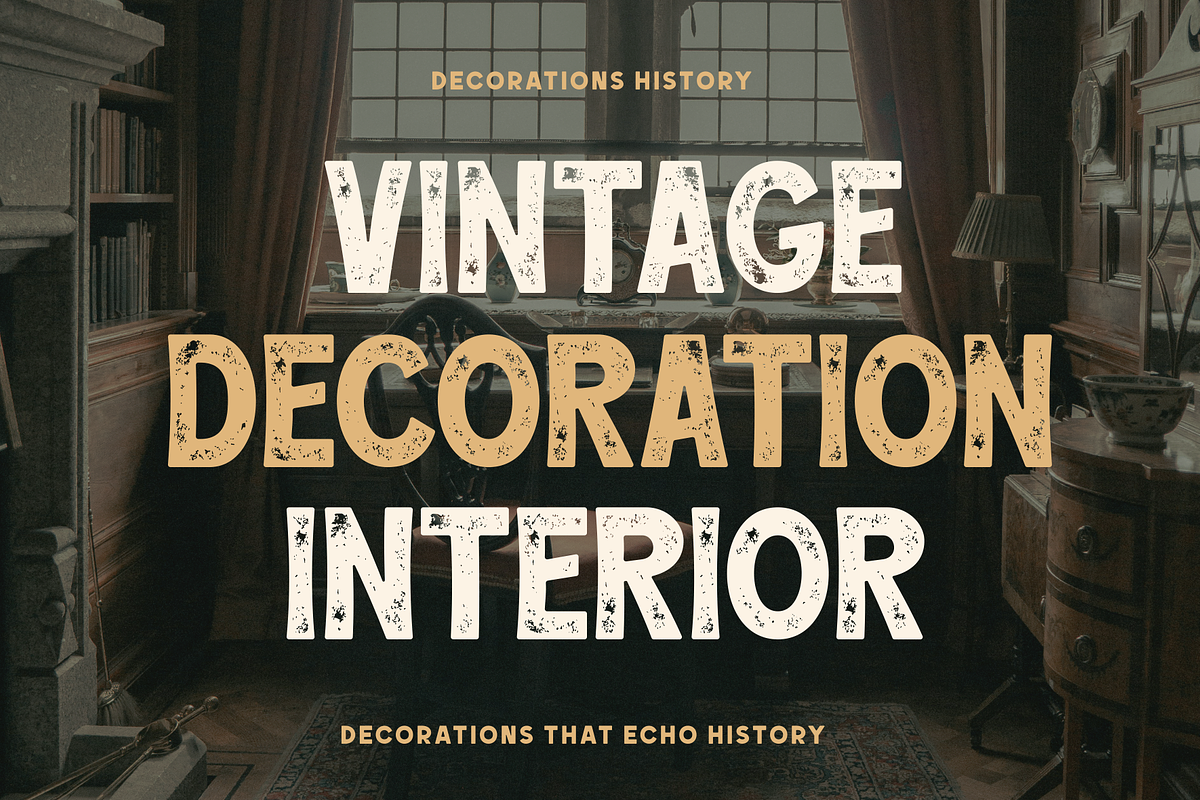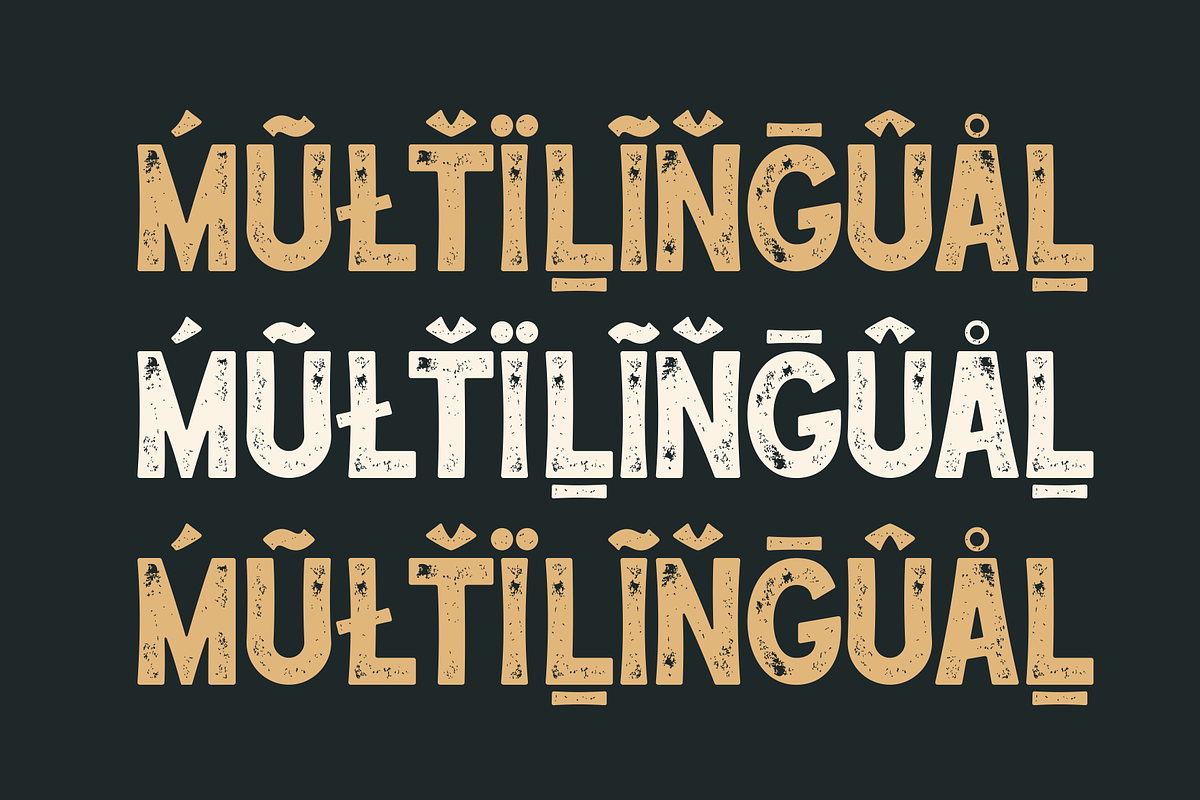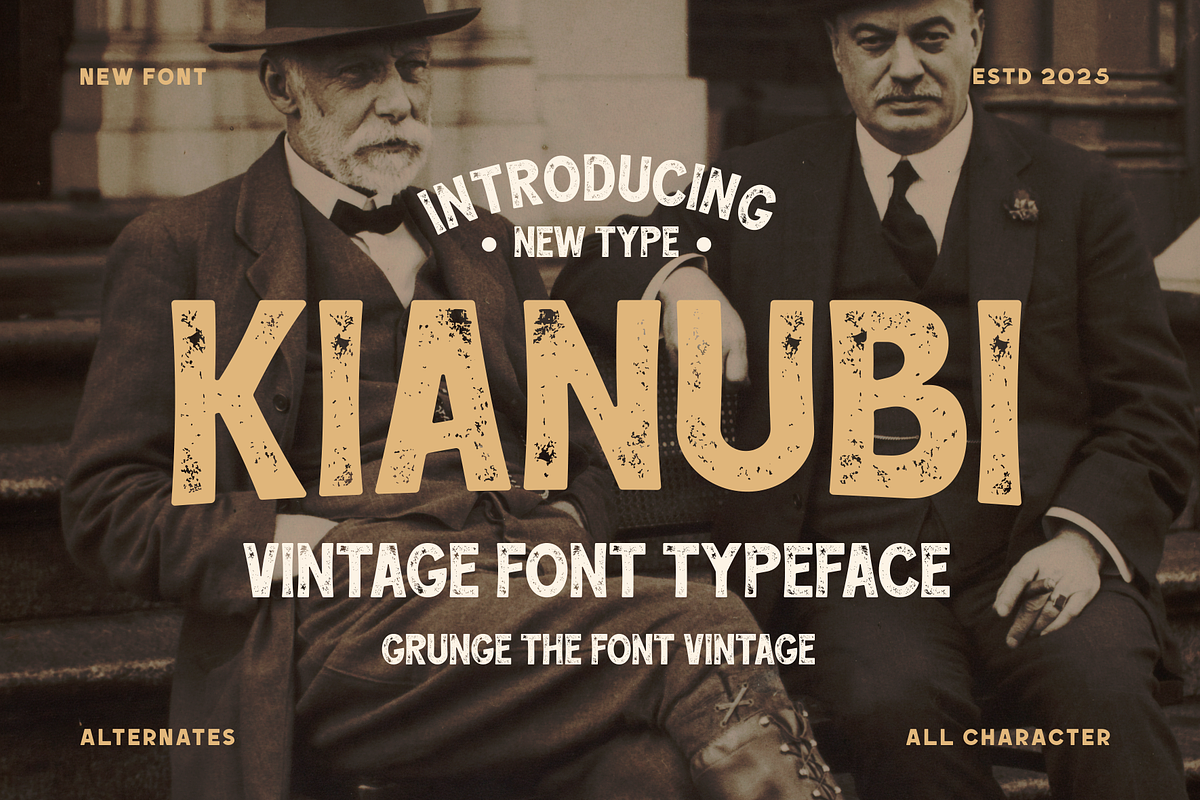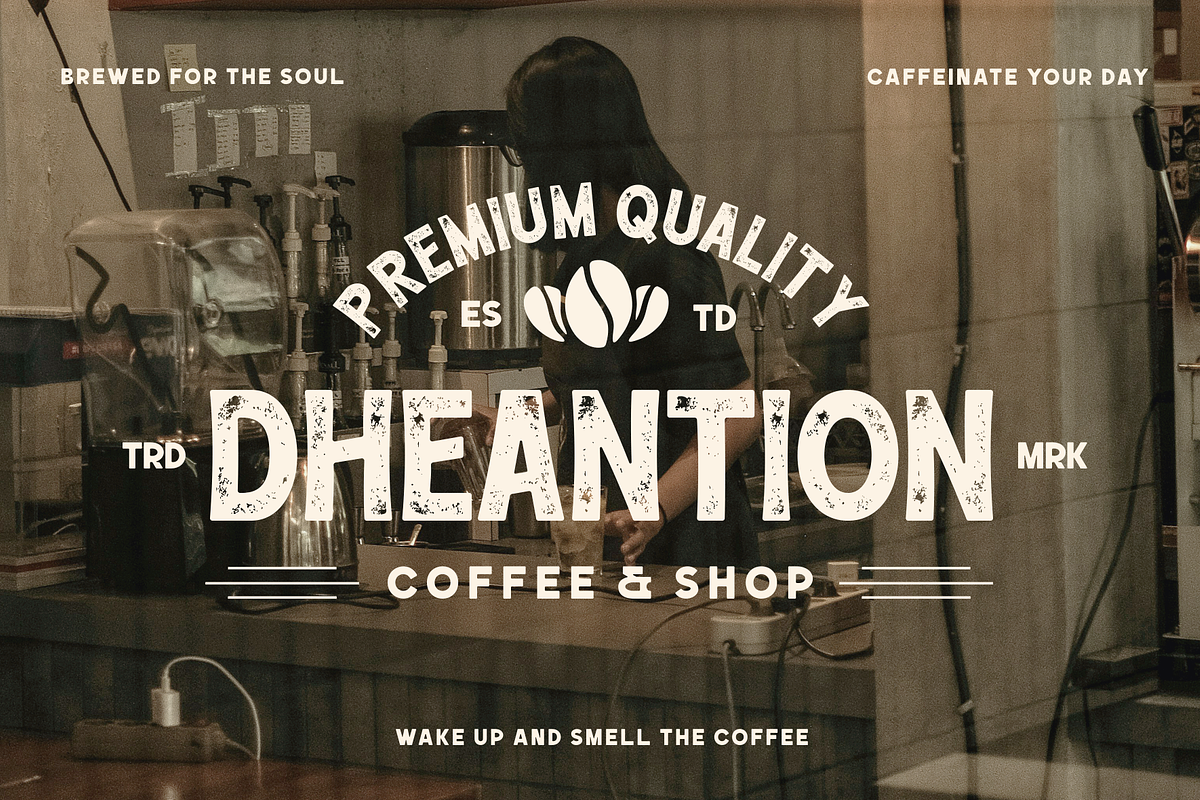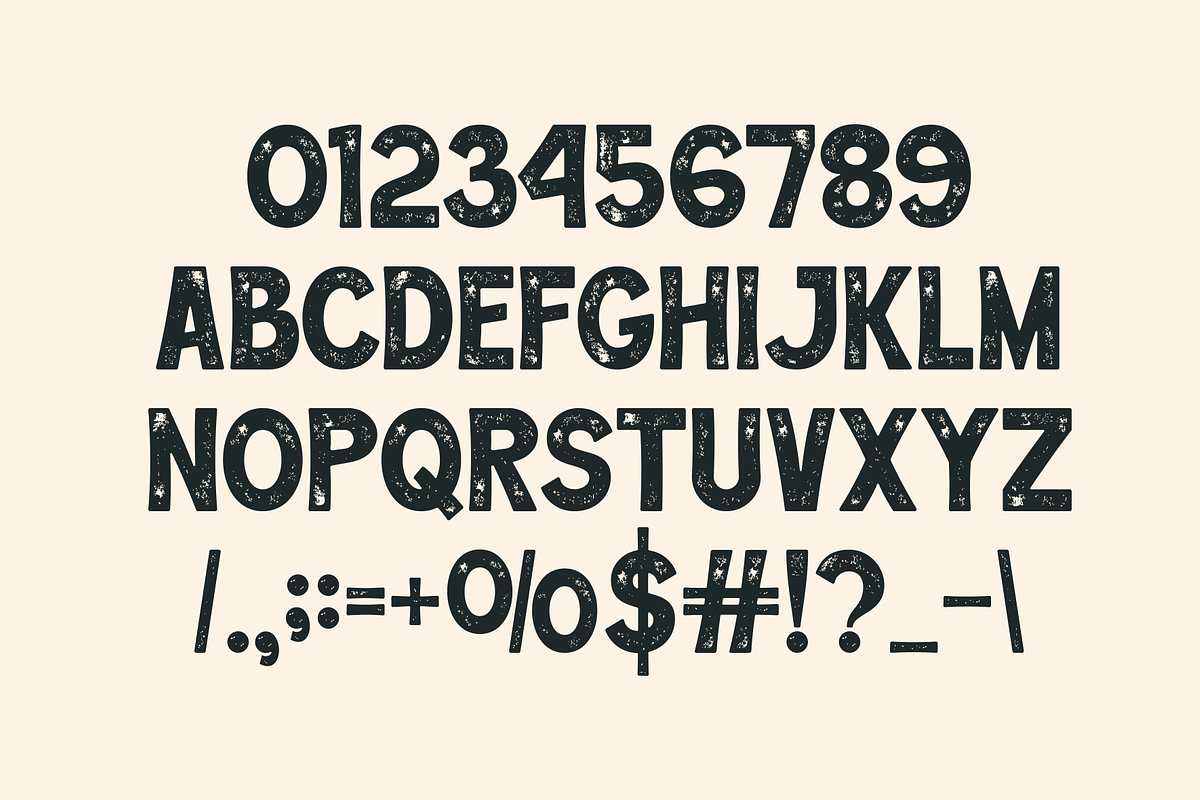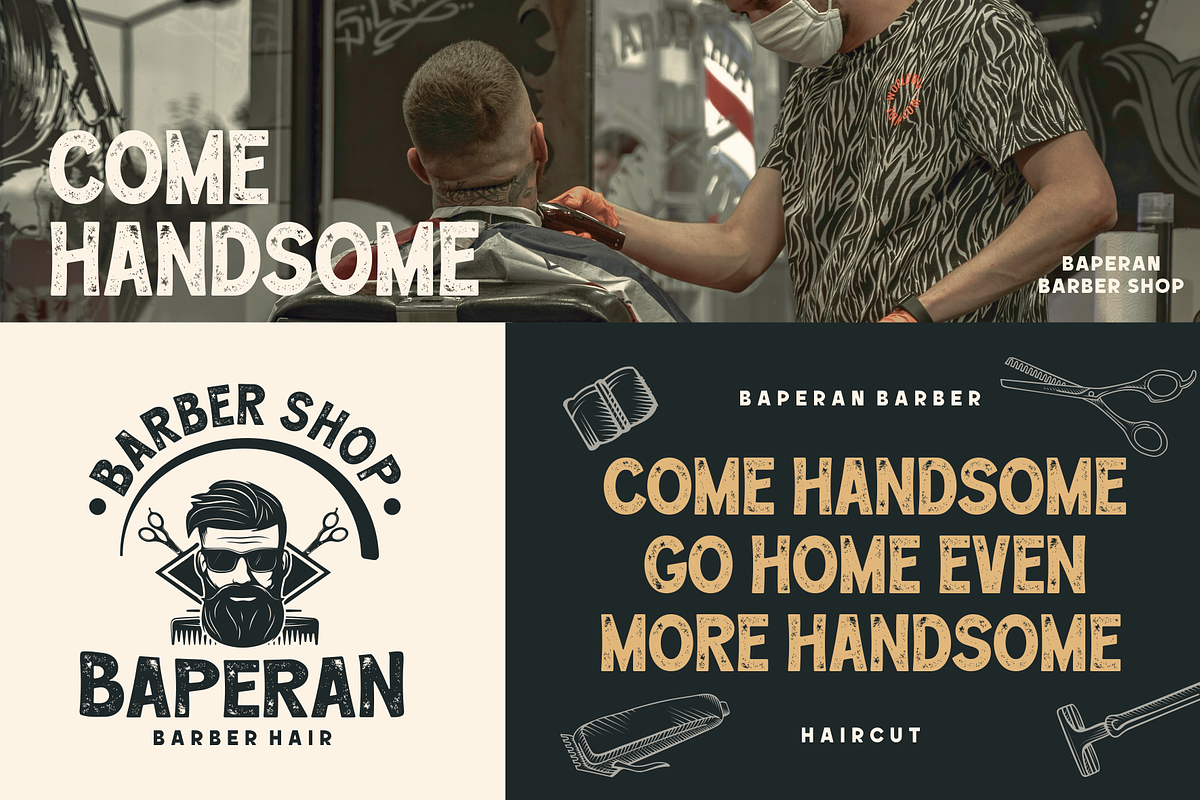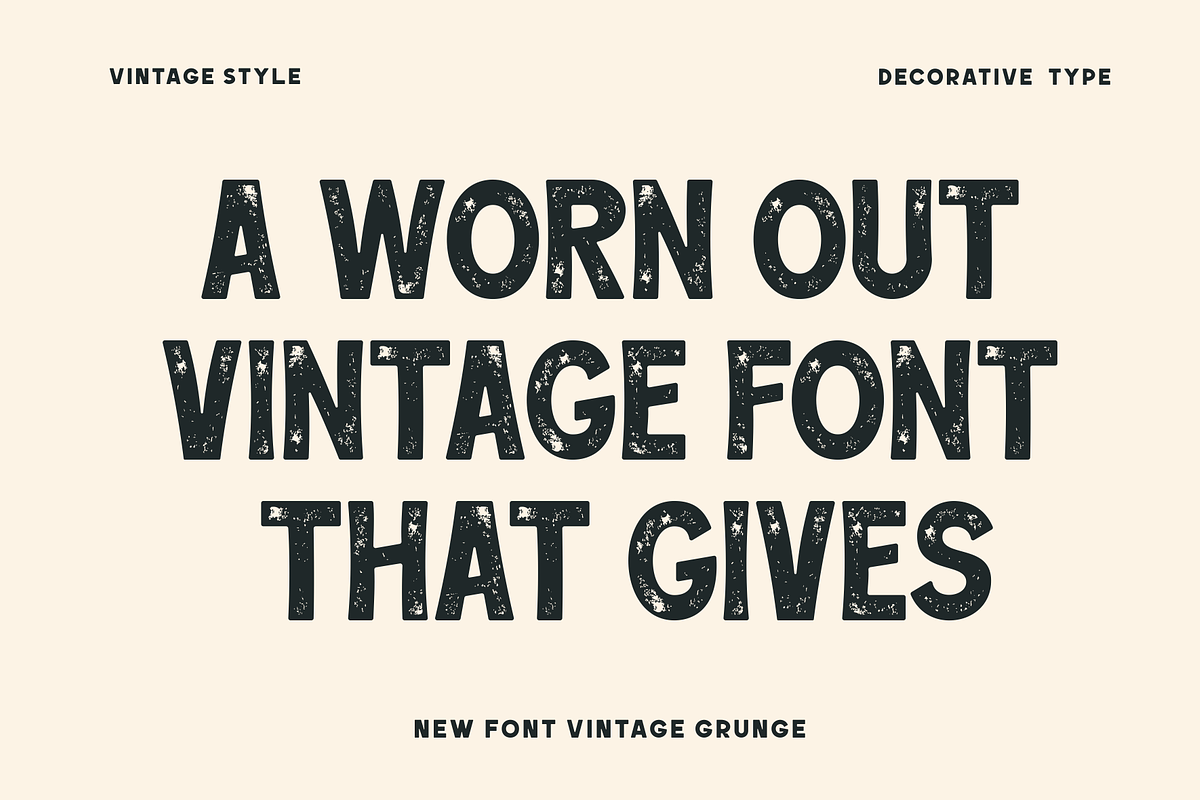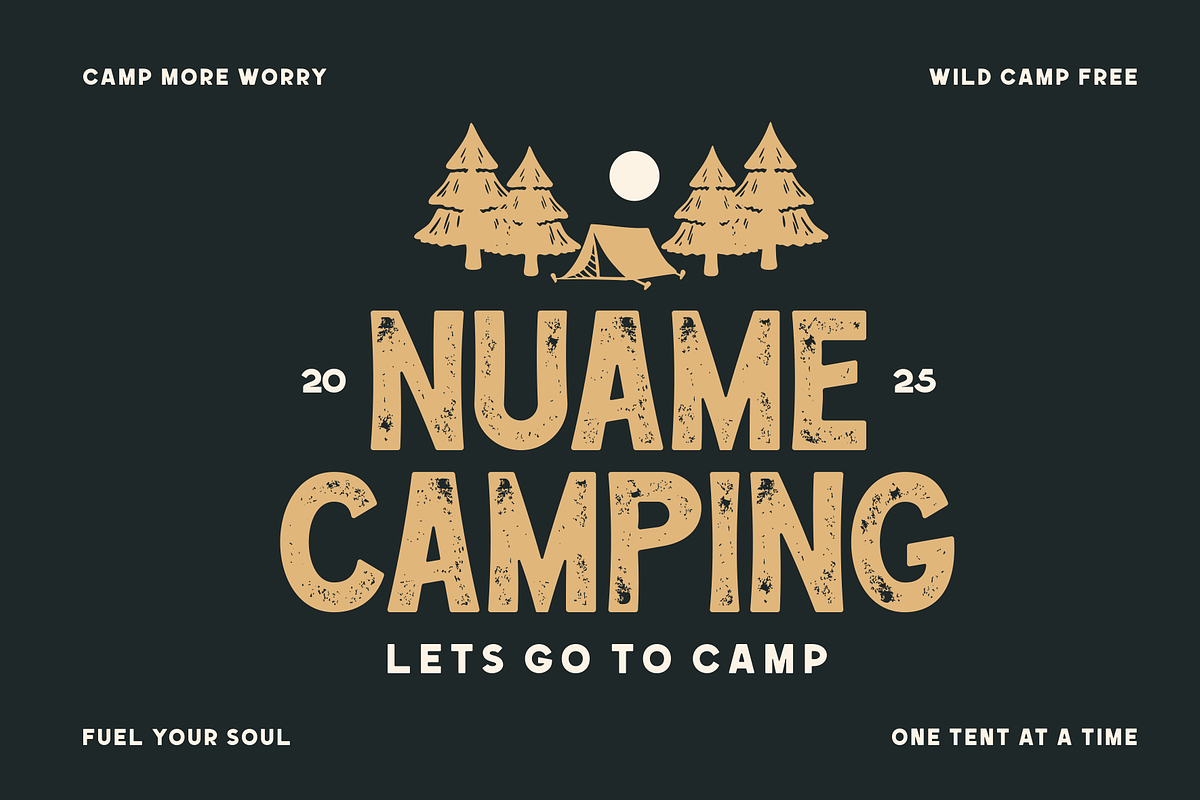
Kianubi - Vintage Font Typeface
Introducing our new product Kianubi - Vintage Font Typeface
Kianubi - is a very flexible choice and can be used in a variety of design contexts. Its ability to provide a clean, professional, contemporary look and its simplicity and visual appeal make this font good for use in the world of graphic design and modern typography